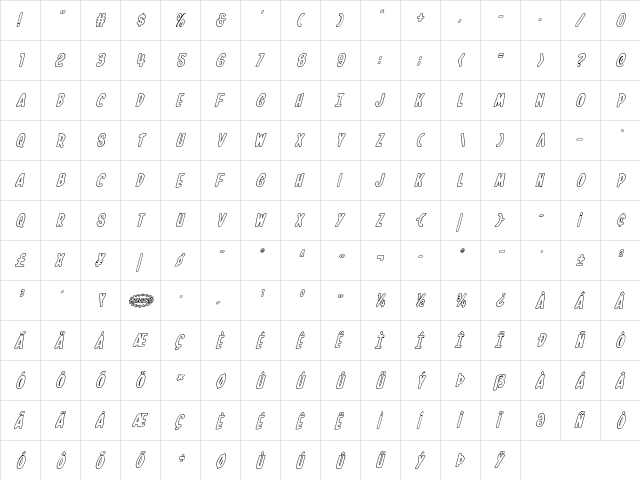
In-House Edition Outline Italic Italic
Design Context for In-House Edition Outline Italic Typeface
In-House Edition Outline Italic brings ornamental detail and strong personality to headlines and identities, where visual impact matters more than quiet functionality. The slanted form adds forward momentum and visual energy.
Font Pairing: Pair with a clean neutral sans-serif for body copy to let In-House Edition Outline Italic's character lead without overwhelming the composition.
Pro Tip: Treat In-House Edition Outline Italic as the centrepiece of your typographic hierarchy. One strong heading set in a decorative face can carry an entire layout.